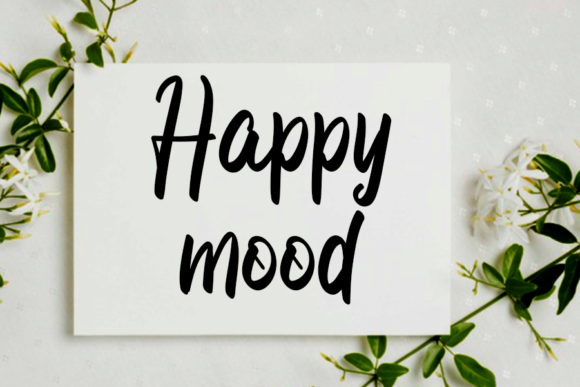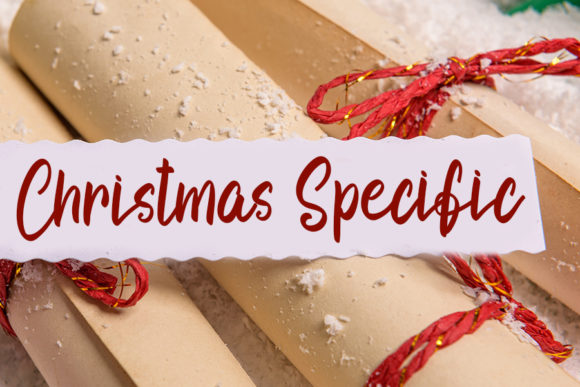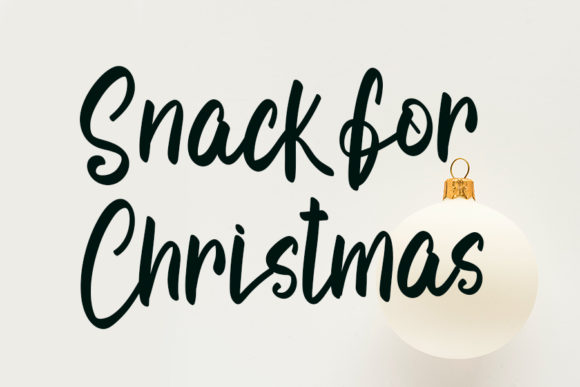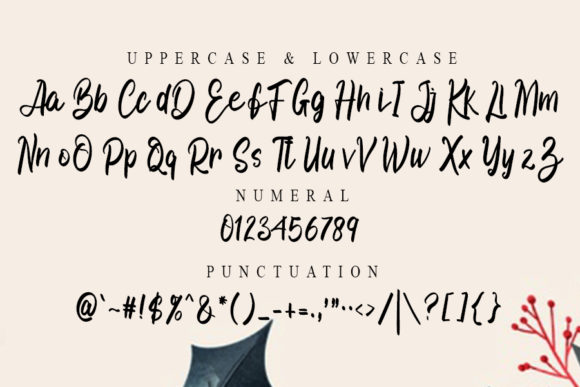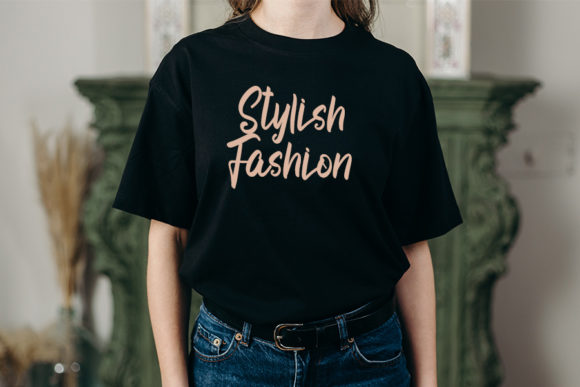
The Perfect Handwritten Touch: Cheese Potatoes Font
As a designer, have you ever found yourself stuck in a creative rut, searching for the perfect font to add that special something to your holiday greeting cards or crafting projects? I know I have. There’s something about a handwritten touch that makes a design feel personal and unique. That’s why I’m excited to share with you a font that’s been a game-changer for me: Cheese Potatoes Font.
With its fresh and friendly feel, Cheese Potatoes Font is the perfect addition to any project that needs a little extra charm. Whether you’re creating holiday cards, gift tags, or scrapbook pages, this font is sure to bring a smile to your face and a touch of whimsy to your design. And the best part? It’s incredibly versatile, making it a valuable asset for any designer looking to add a handwritten touch to their work.
Cheese Potatoes Font Key Features
- Unique Characteristics: The Cheese Potatoes Font features a unique, hand-drawn design with a distressed, vintage feel, making it perfect for adding a touch of nostalgia to designs.
Review of Cheese Potatoes Font
Overall, I have mixed feelings about Cheese Potatoes Font. Here are some points that work well: ✨ The font’s unique, playful design makes it perfect for titles, headings, and whimsical projects. ✨ It comes in a variety of weights and styles, giving users plenty of options to choose from. ✨ The font is highly legible, even at smaller font sizes.
However, there are some limitations to consider: ⚠️ The font may not be suitable for formal or professional projects, as its playful design may come across as unprofessional. ⚠️ Some characters, such as the letter ‘a’, may have slightly irregular shapes that can be distracting. ⚠️ The font’s design may not be as versatile as some other fonts, limiting its use in certain contexts.
In conclusion, Cheese Potatoes Font is a fun, playful font that’s perfect for projects that require a lighthearted touch. While it has its limitations, it’s a great choice for titles, headings, and other design elements where a bit of whimsy is needed.
- Unique, playful design
- Variety of weights and styles
- Highly legible
- Not suitable for formal or professional projects
- Slightly irregular character shapes
- Design may not be as versatile
Practical Application Guide for Cheese Potatoes Font
Tips for Getting the Most Out of Cheese Potatoes Font
Experiment with different font sizes, colors, and styles to create unique and visually appealing designs. Use the font in combination with other design elements to create a cohesive look. Consider using the font in bold or italic styles to add emphasis to your text.
Use the Cheese Potatoes font for creative projects, such as graphics, logos, and posters. It’s also suitable for presentations, reports, and documents that require a unique and eye-catching typography. The font’s playful and whimsical nature makes it perfect for branding, marketing, and advertising materials.